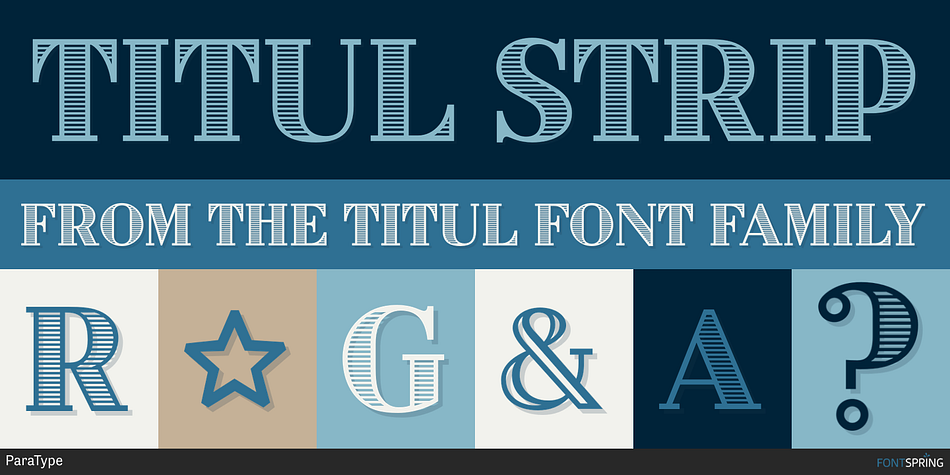
TITUL STRIP
Designed by Isabella Chaeva, Titul is a display serif and dingbat font family. This typeface has sixteen styles and was published by ParaType.
Titul is a display typeface with strong historical connotations. It is based on a series of stylish letterings created in the 1920s by a Russian graphic artist Alexander Leo, who derived his designs from books printed in the first half of the 19th century. The type family consists of four ornamented and three basic styles: one solid, one inline and one striped. All seven faces have corresponding oblique styles. The family is augmented by a beautiful vignette and ornamental borders fonts. Titul works well for vintage spirited book covers, theater posters, packaging and greeting cards. The typeface was created by Isabella Chaeva.
Designer Isabella Chaeva